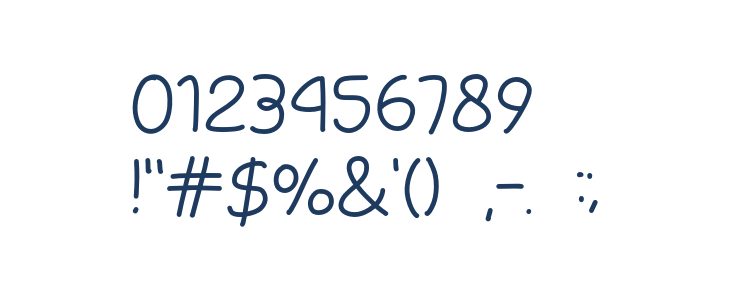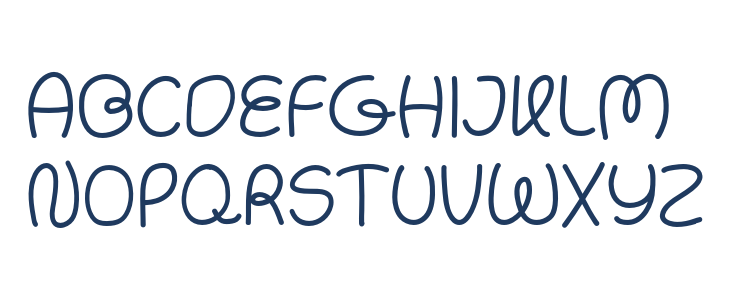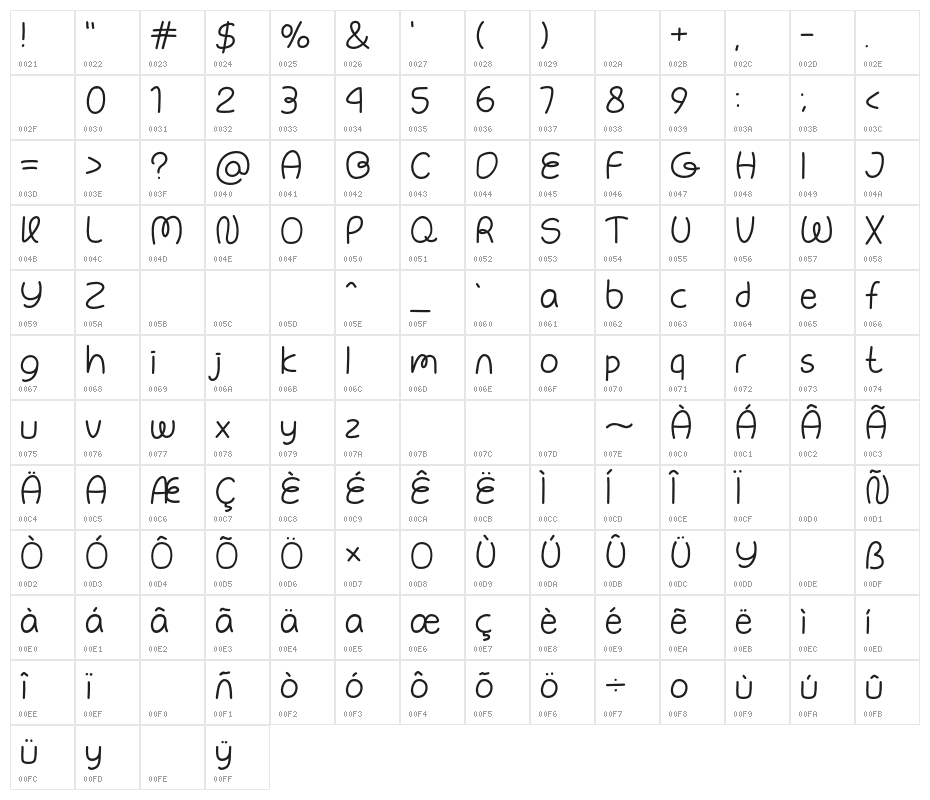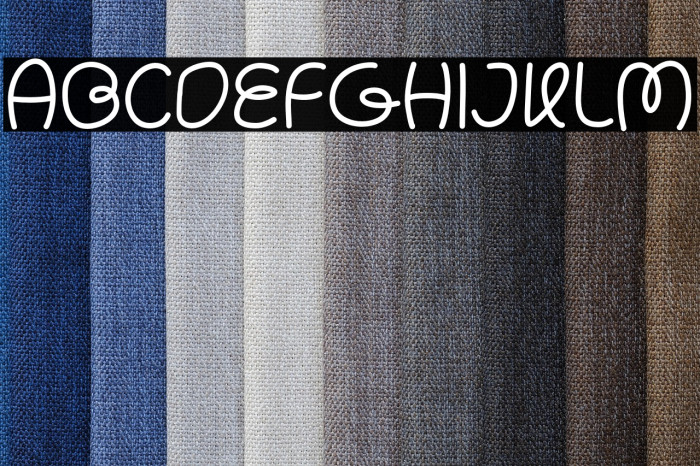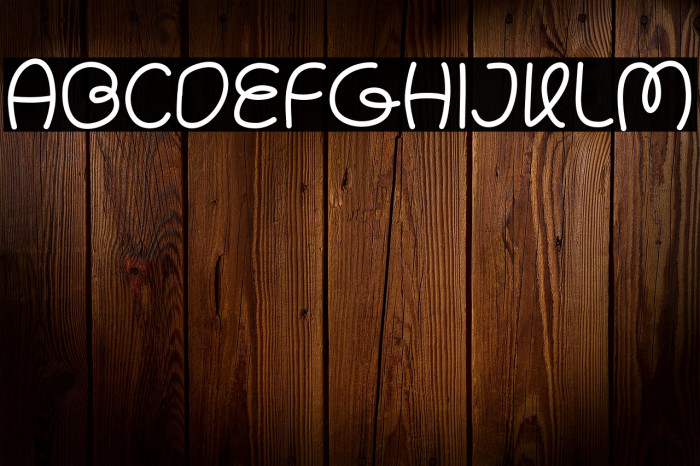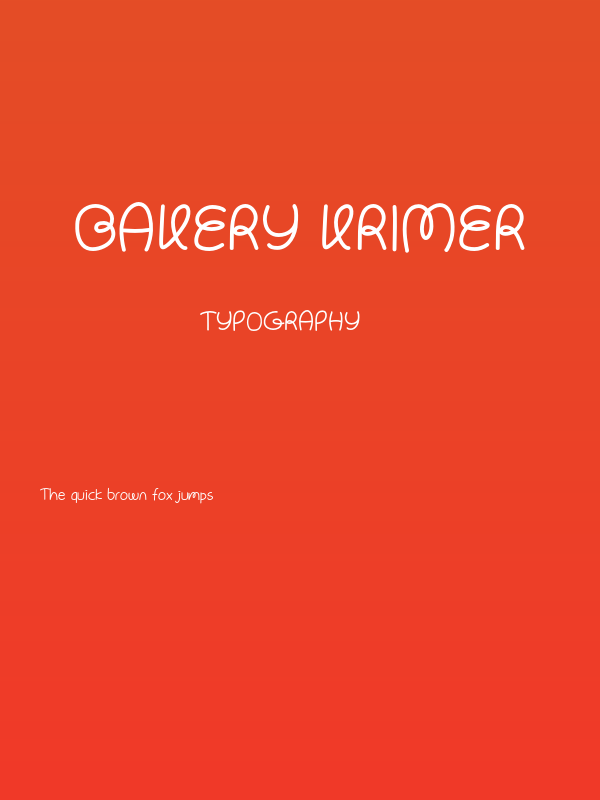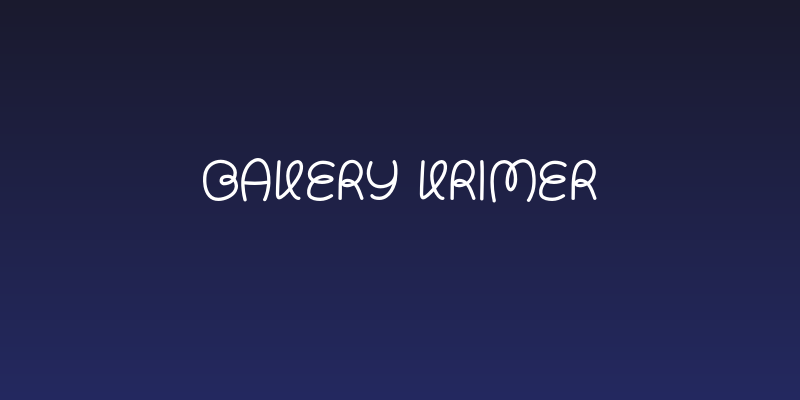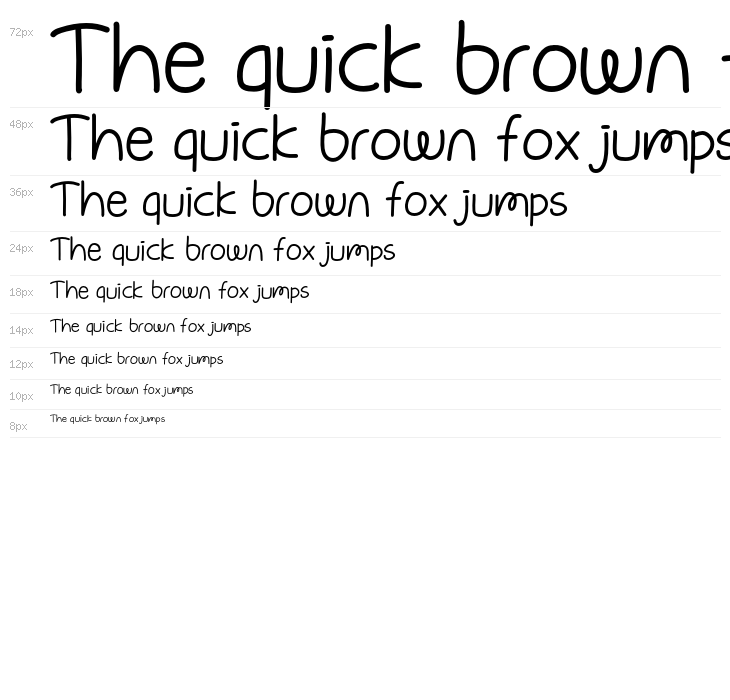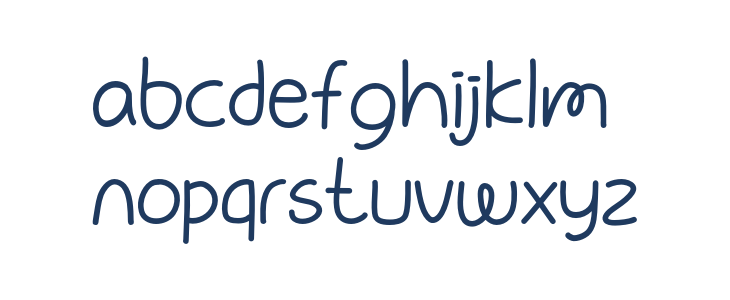
Bakery Krimer Font
Bakery Krimer Description
A playful, rounded handwritten font with smooth curves and consistent stroke width, giving it a friendly and approachable appearance. The characters are slightly irregular, enhancing its casual and informal style.
| Overall Style | Playful, Casual, Friendly |
| Use Case | Logos, Headlines, Posters, Invitations |
| Proposed Projects | Children's books, greeting cards, bakery branding, casual invitations, playful posters. |